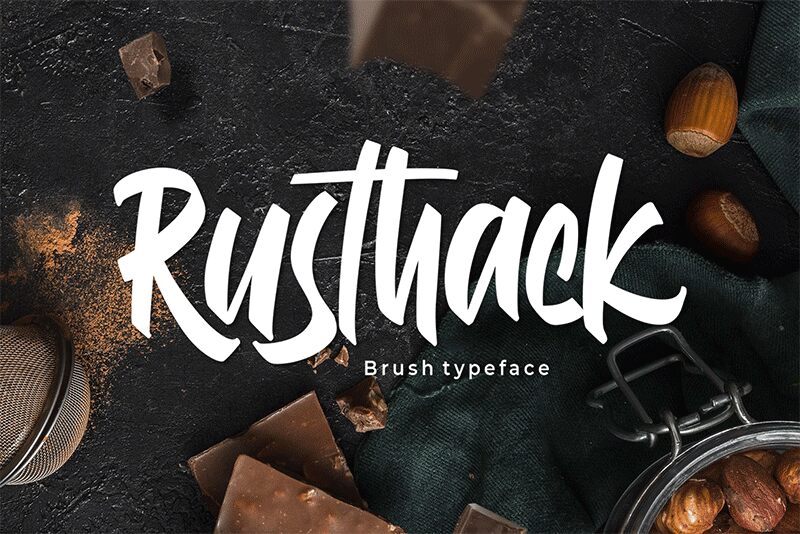
Rusthack font family designed by Arterfak Project invites users with its natural, modern, and expressive style. Created to mimic brush and pen graphics, this free font family has the stylishness and grace that will embellish your original projects and set them apart. A stylish uppercase with a thick character design paired with a soft lowercase that naturally brings a personal touch rarely found with fonts these days.
Use it for digital arts, posters, branding projects, identity design, album covers, apparel designs, stationery, magazines, book covers, quotes, or creative logotypes. However you use it, you’re guaranteed a design as attention-grabbing and memorable as it is beautiful.